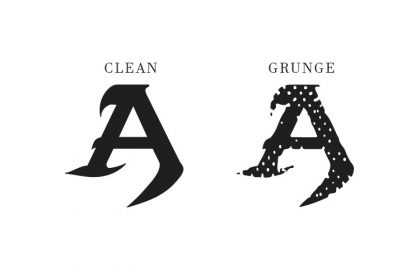
Hipotesis Old Style Typeface
Hipotesis is a typeface inspired in tattoo letters, chicano culture and calligraffiti. It works well with normal size text, but it works even better for large displays, short words, or even just to incorporate a few or single characters in a design. Suitable for many creative products & tattoo designs, like posters, t-shirt, street wear, logo, signage, headlines, etc.